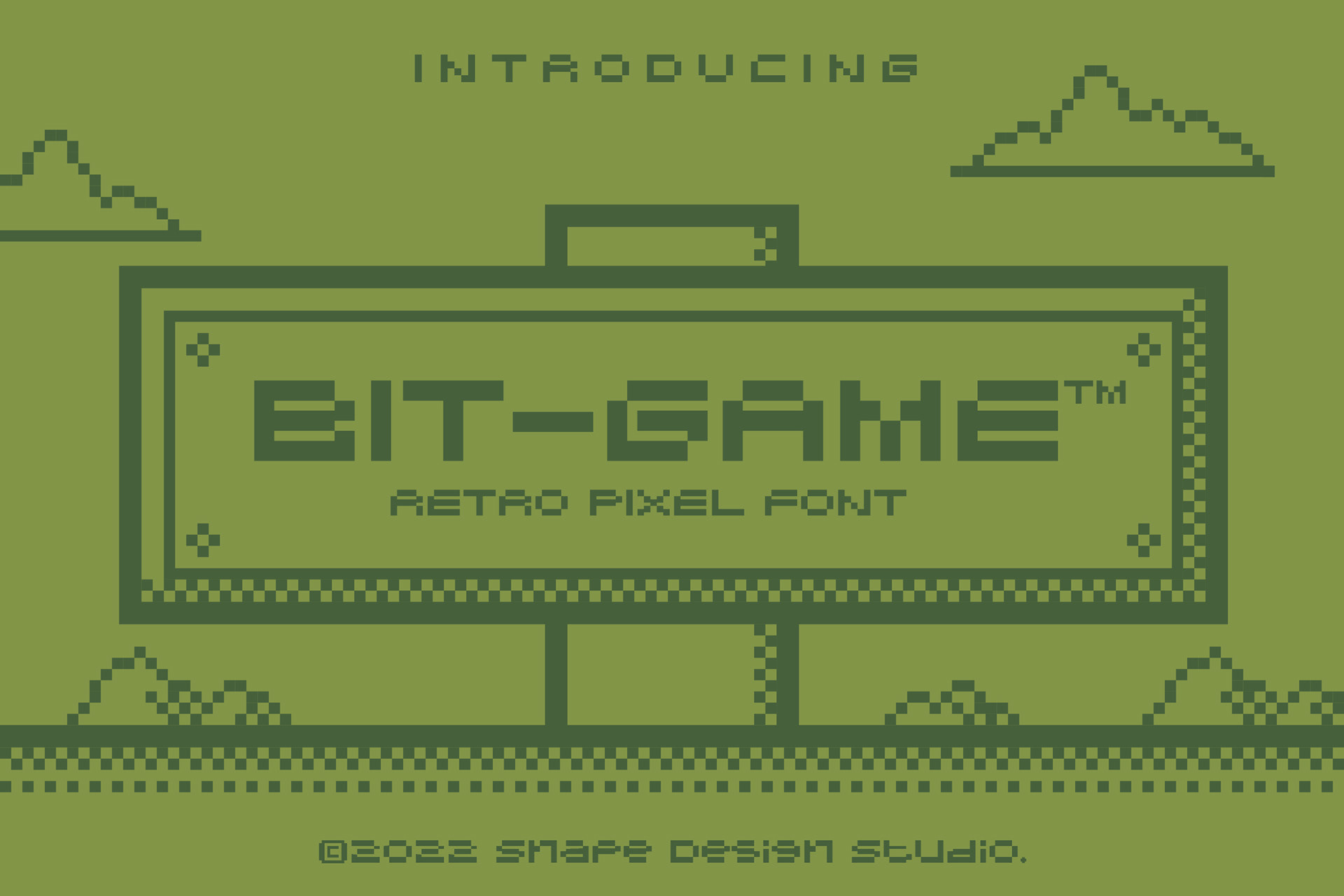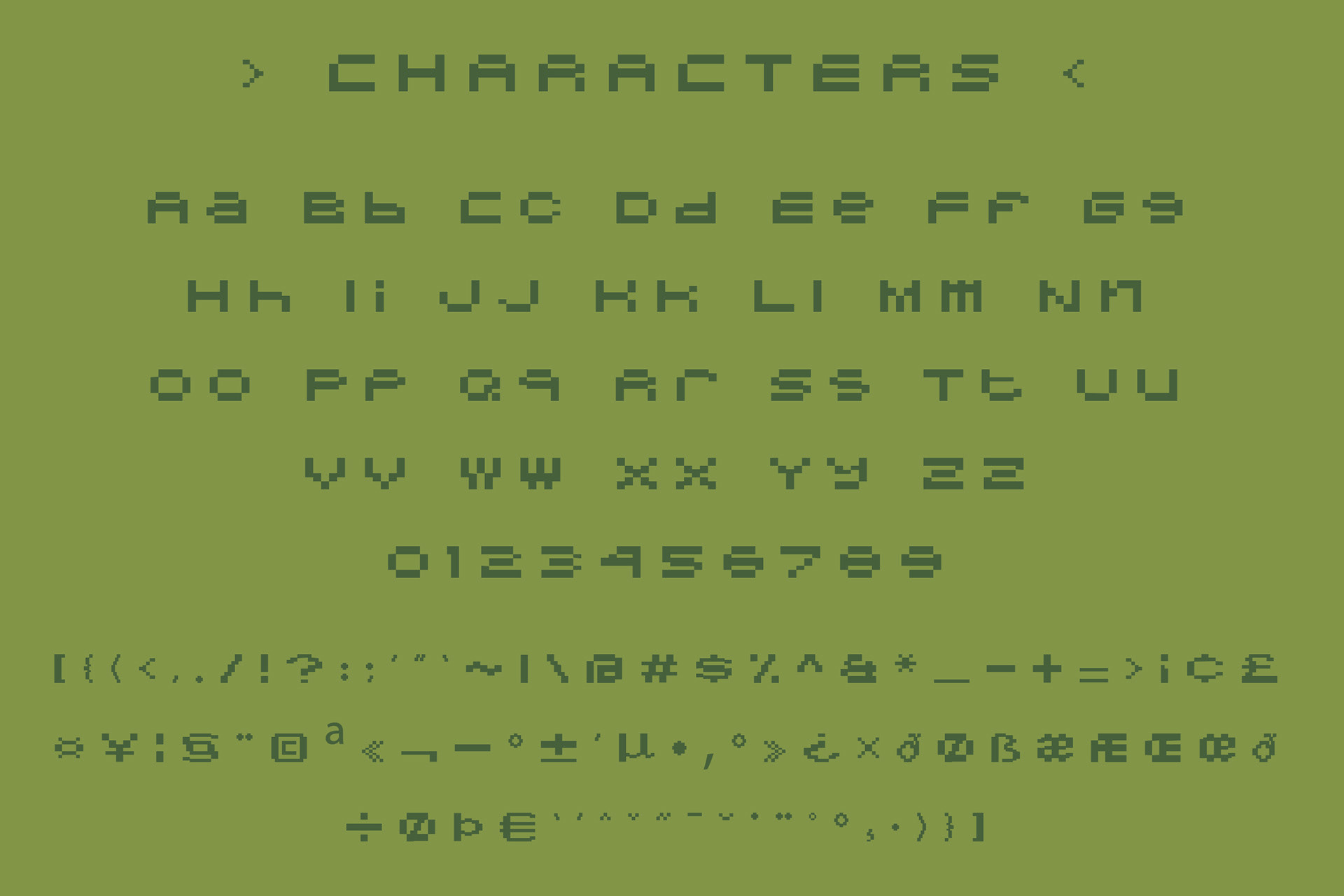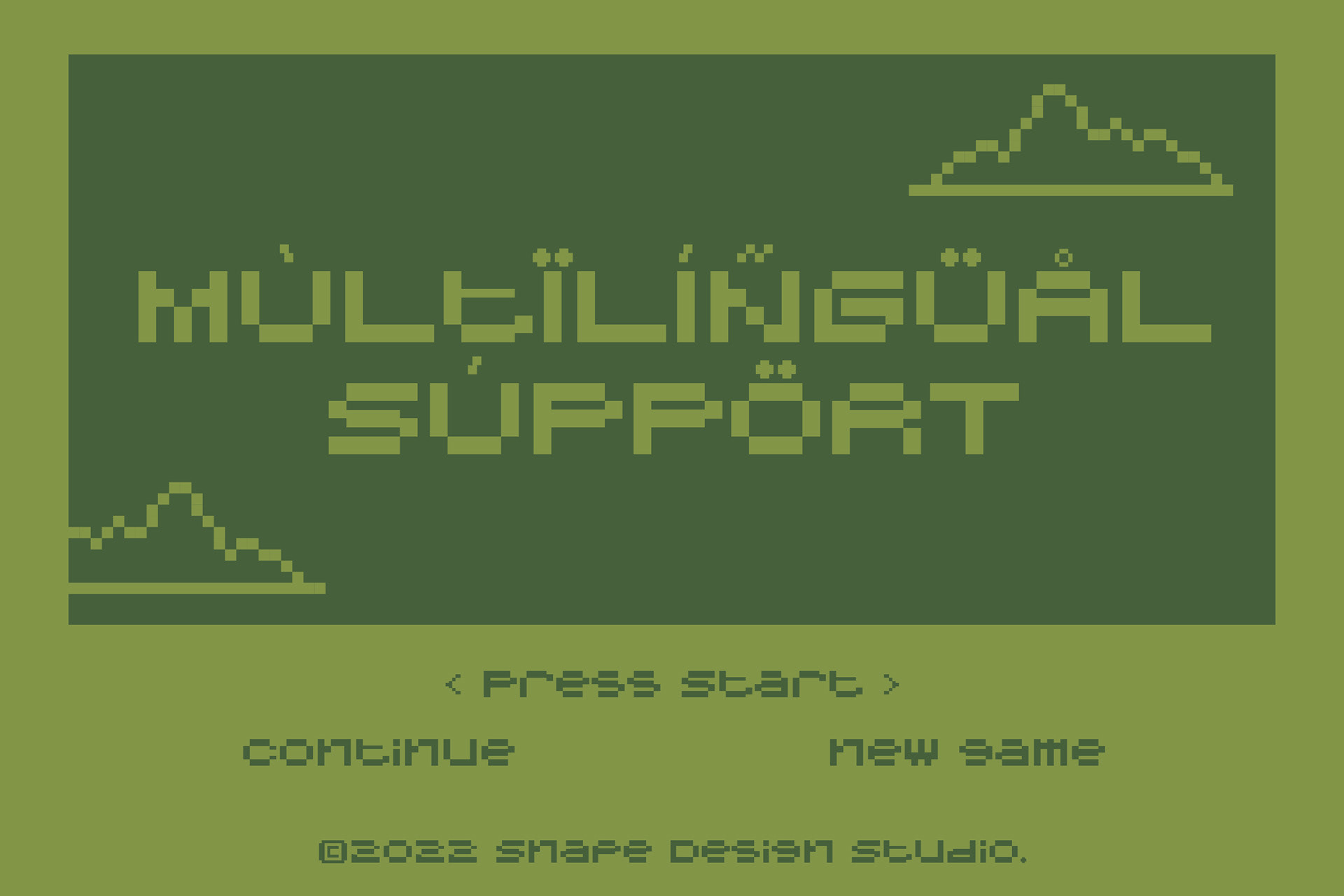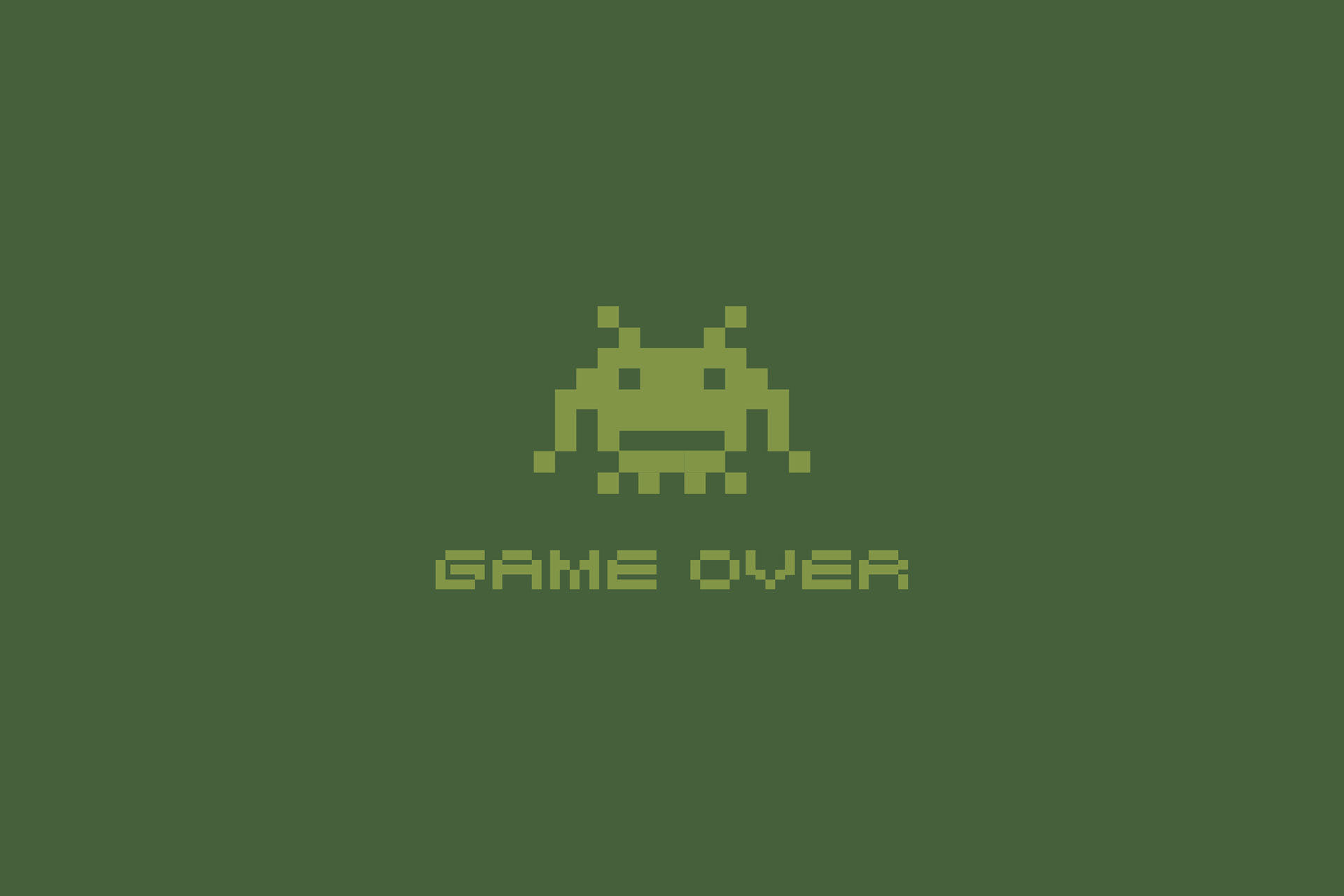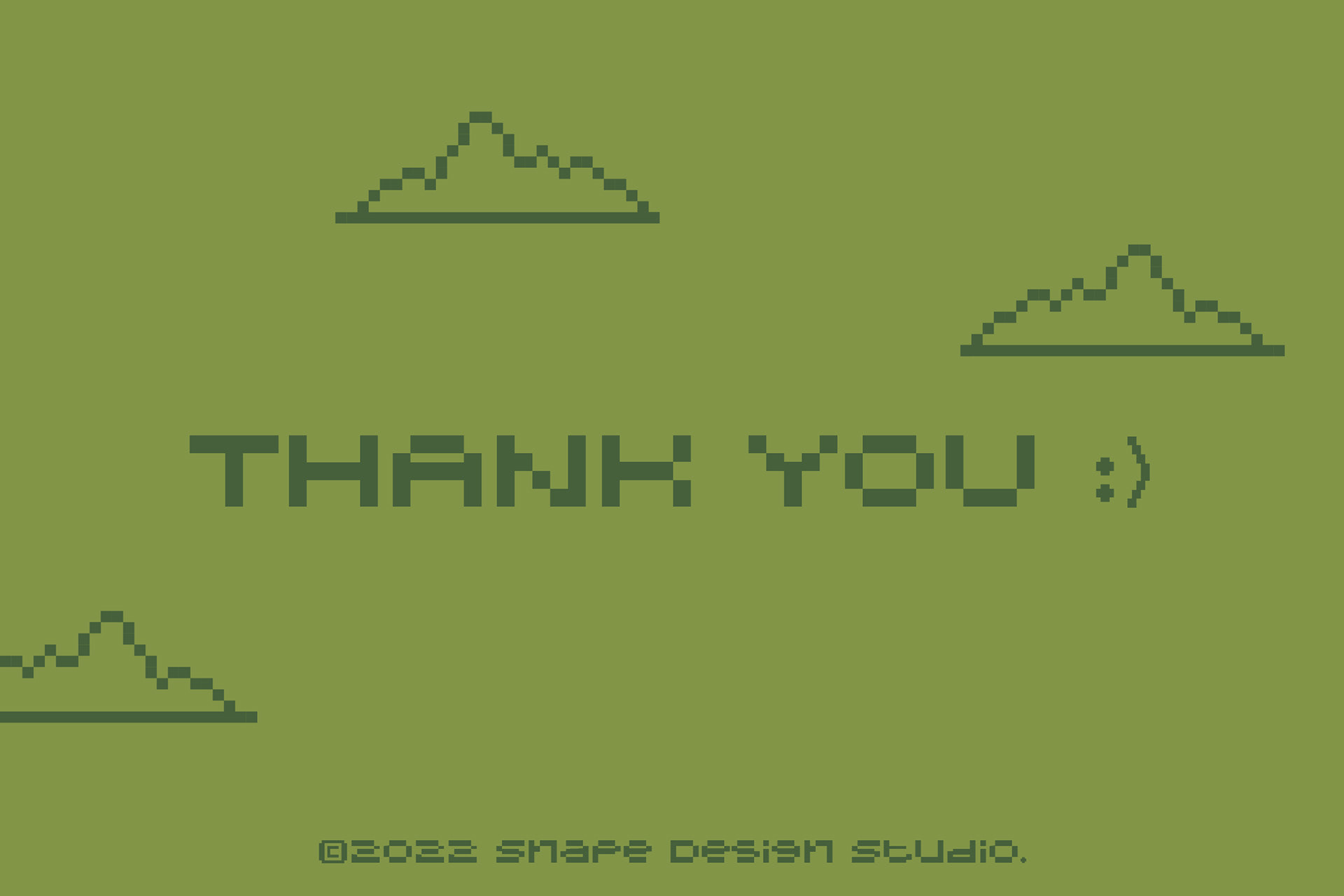
ABOUT THE FONT
Bit-Game is a retro pixel font style, perfect for retro game design theme, Also suitable for movie, documenter, film, logo, poster, game, book cover, headlines, title and many more projects. Add this font to your creative ideas and notice how it will make them stand out!
Bit Game - Retro Pixel Font design by Ario Sabrang Damar publish under Snape Design Studio